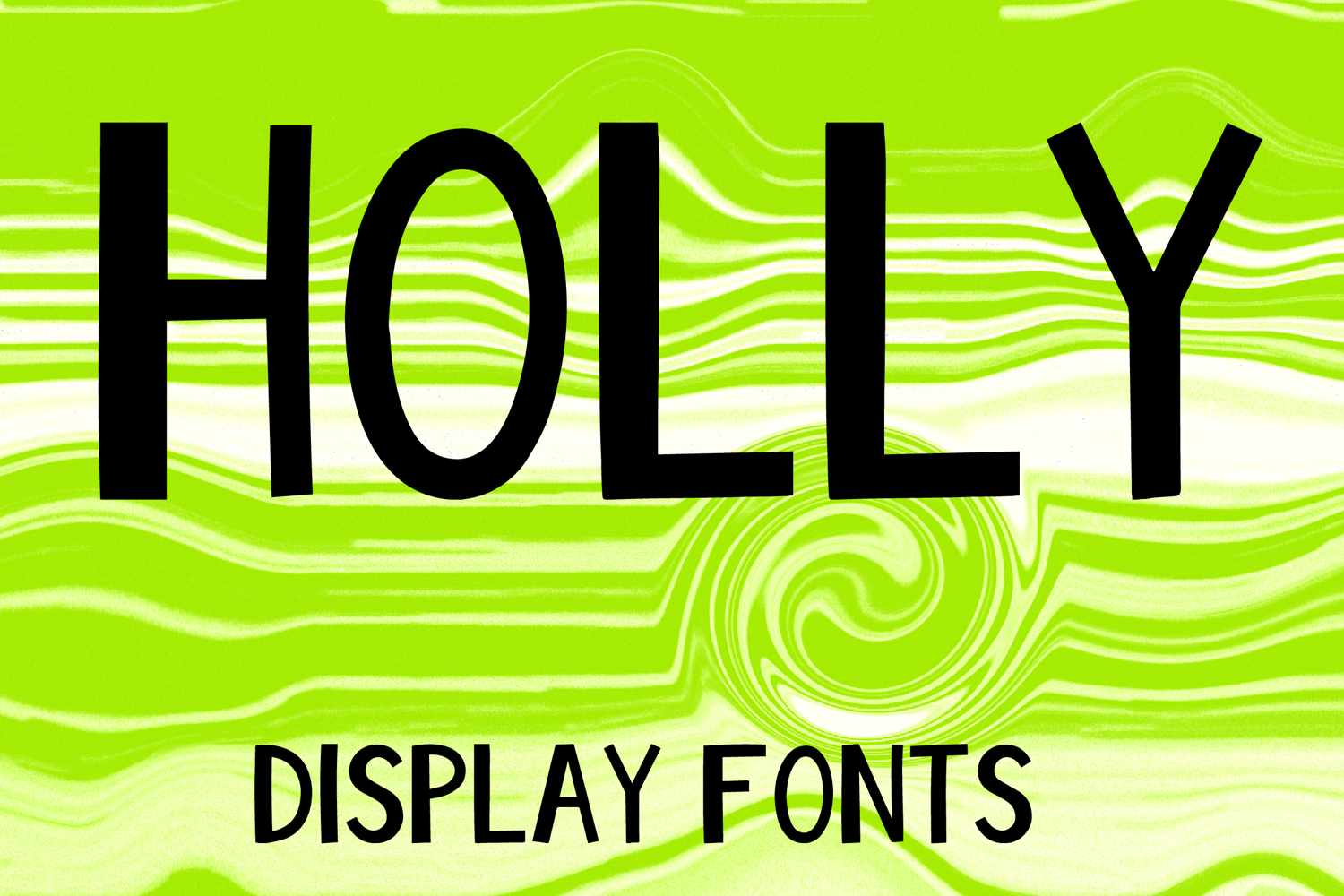
HOLLY
HOLLY is a bold modern display font with a tall condensed style and clean minimalist character. Its uppercase letterforms feature strong straight lines, smooth monoline strokes, and a sleek balanced structure that creates a striking, stylish, and eye-catching look. Designed with uppercase letters A–Z and numbers 0–9, HOLLY is perfect for branding, posters, packaging, logos, headlines, social media graphics, and creative projects that need a fresh and memorable statement.